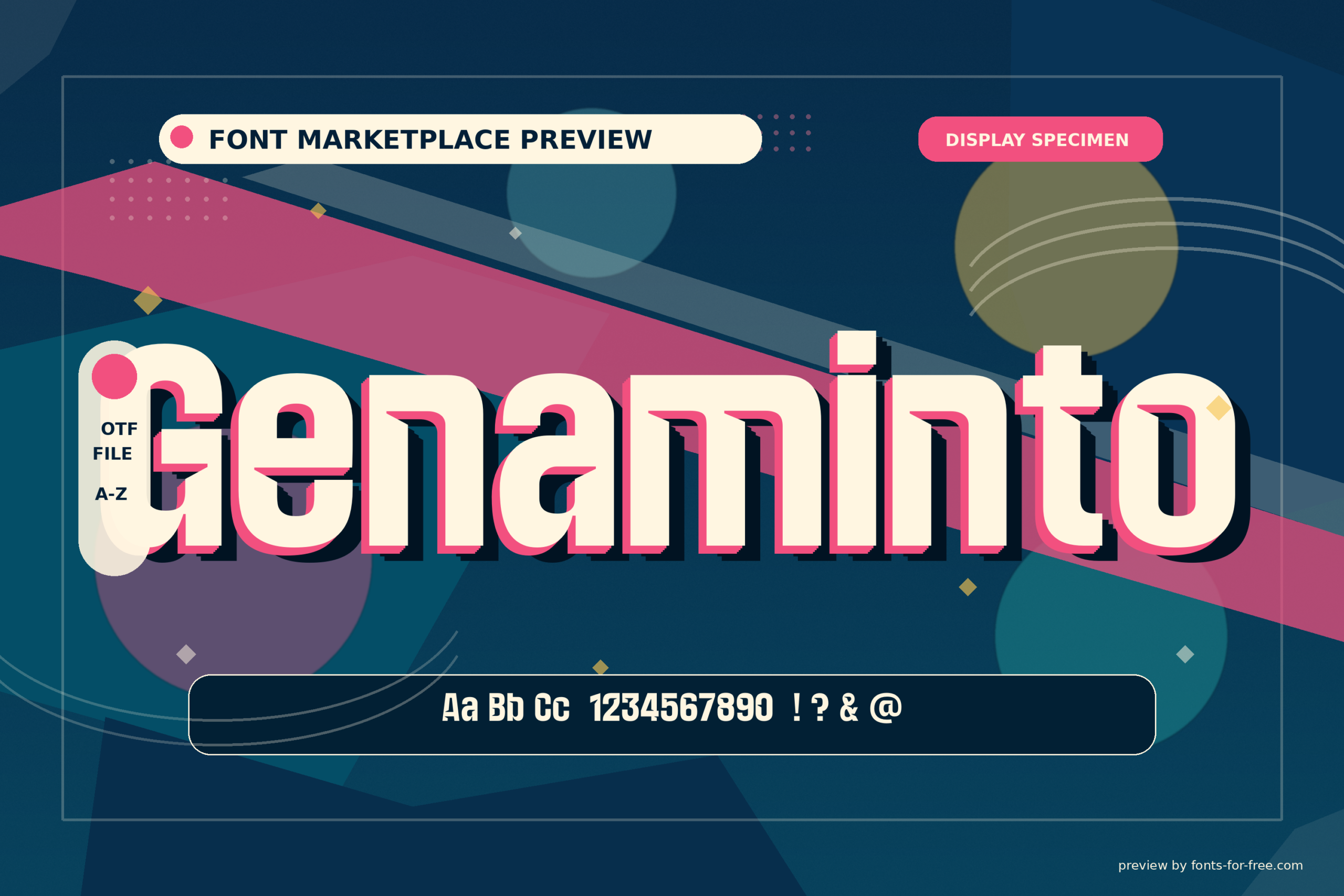
Genaminto
Genaminto is a bold display sans serif designed by Khairil Anwar, with Jetsmax Studio. Its forms are heavy, upright, and tightly structured, using sharp ink traps, angular slash cuts, and block-like proportions to create a technical, futuristic tone. The large counters and simplified shapes keep short words readable, while the decorative cuts make it better suited to headlines than long text. Its style fits esports graphics, digital posters, event titles, tech branding, logos, and other high-energy visual contexts. It is licensed under the SIL Open Font License 1.1.